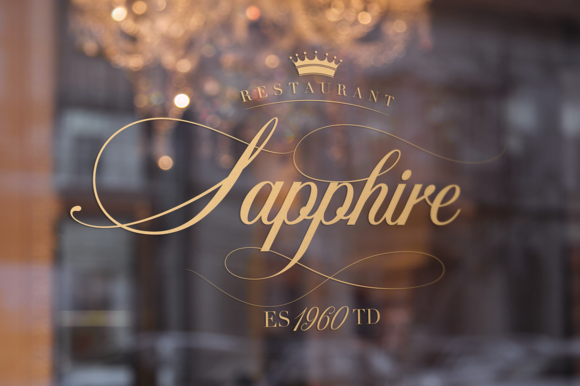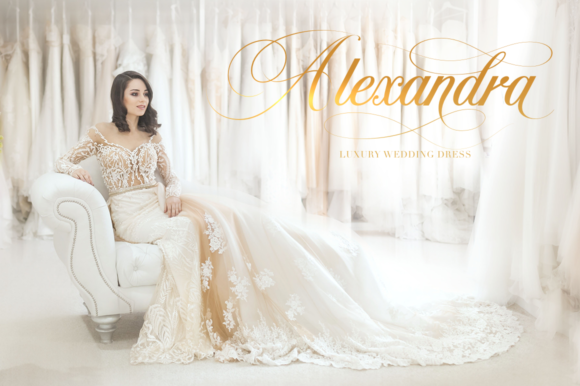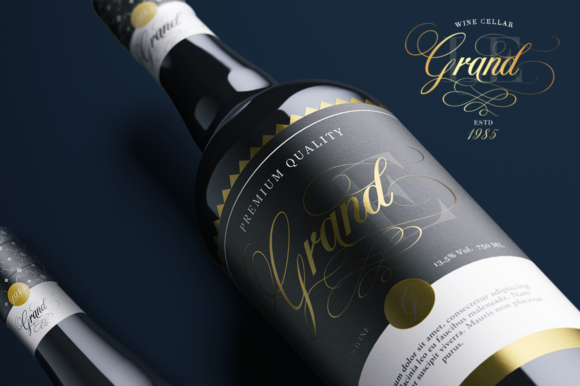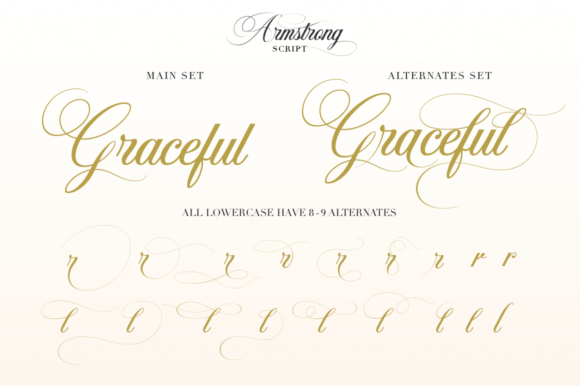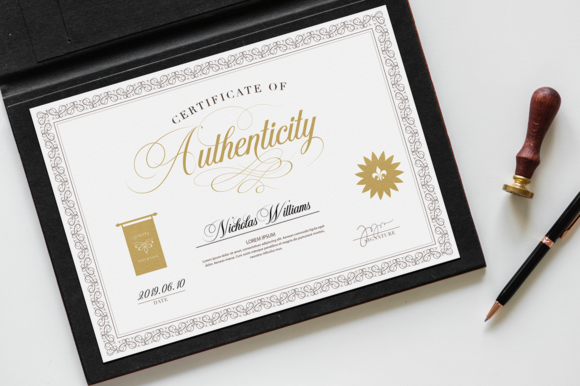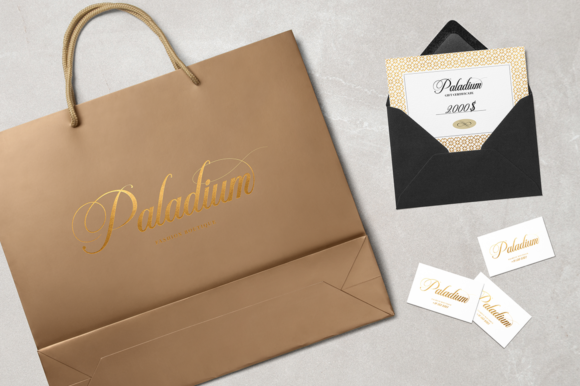
Discover the Elegance of Armstrong Font: A Timeless Calligraphy-Inspired Typeface
In the world of typography, few fonts capture the essence of classic elegance and sophistication as beautifully as the Armstrong font. Inspired by the art of traditional calligraphy, Armstrong is a handwritten font that exudes a sense of refinement and luxury, making it a popular choice among designers, crafters, and anyone looking to add a touch of timeless charm to their projects.
The Inspiration Behind Armstrong Font
Armstrong font draws its inspiration from the classic calligraphy of the past, where every letter was crafted with precision and care to create a visually stunning piece of art. The font’s creator aimed to capture the essence of this traditional craftsmanship and translate it into a digital format that could be easily used by designers and crafters alike. The result is a font that is not only elegant but also highly versatile, suitable for a wide range of applications from wedding invitations and branding to packaging and digital media.
Characteristics of Armstrong Font
Armstrong font is characterized by its flowing lines, delicate strokes, and classic letterforms that are reminiscent of traditional calligraphy. The font features:
- Elegant Lettering: Each letter in the Armstrong font is carefully crafted to convey a sense of elegance and sophistication. The letters are designed to flow smoothly into one another, creating a beautiful and harmonious look.
- Classic Charm: The font’s classic charm is evident in its traditional letterforms, which are inspired by the calligraphy of the past. This makes Armstrong an excellent choice for projects that require a touch of nostalgia or vintage flair.
- Versatility: Despite its classic inspiration, Armstrong is a highly versatile font that can be used in a variety of contexts. Whether you’re designing a wedding invitation, a logo, or a website, Armstrong can add a touch of elegance and sophistication to your project.
- Readability: One of the key features of the Armstrong font is its readability. Even at smaller sizes, the font remains clear and easy to read, making it suitable for both print and digital applications.
Uses of Armstrong Font
The versatility of Armstrong font makes it suitable for a wide range of uses, including:
- Wedding Invitations and Stationery: Add a touch of elegance to your wedding invitations, save-the-date cards, and other stationery with Armstrong font.
- Branding and Logo Design: Use Armstrong font to create a sophisticated and memorable brand identity that stands out from the competition.
- Packaging Design: Elevate your packaging design with the classic charm of Armstrong font, perfect for luxury brands and high-end products.
- Digital Media: Incorporate Armstrong font into your digital media, such as website headers, social media graphics, and email newsletters, to add a touch of sophistication and elegance.
Tips for Using Armstrong Font
To get the most out of Armstrong font, consider the following tips:
- Pair with Contrasting Fonts: Armstrong font pairs beautifully with simpler, sans-serif fonts. Use this contrast to create visual interest and hierarchy in your designs.
- Adjust Letter Spacing: Experiment with letter spacing to achieve the perfect balance and flow for your text. This can enhance the overall elegance of the font.
- Use for Headings and Titles: Armstrong font is particularly effective for headings and titles, where its elegant and sophisticated style can be fully appreciated.
| Font Name | Armstrong Font |
Armstrong font is a beautiful and elegant typeface that brings the charm of classic calligraphy to the digital world. Its sophisticated design, versatility, and readability make it an excellent choice for designers and crafters looking to add a touch of luxury and refinement to their projects. Whether you’re working on a wedding invitation, a brand identity, or a digital project, Armstrong font is sure to impress with its timeless elegance and classic charm.